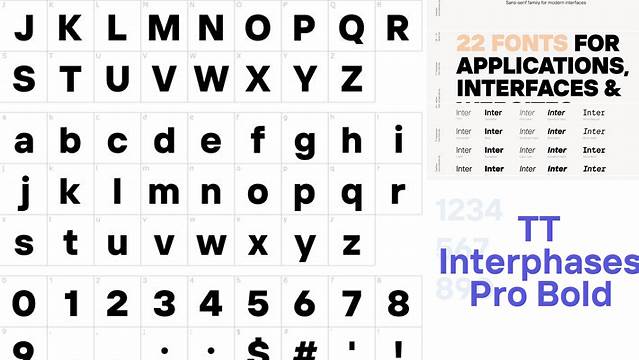
Hey guys, are you on the hunt for a killer font that’s gonna make your designs pop? Look no further! Today, we're diving deep into TT Interphases Bold, a font that's seriously turning heads. And the best part? We'll guide you on how to get your hands on it for free! This article will be your ultimate resource, packed with everything you need to know about this amazing font, from its design to where you can snag that free download. Get ready to boost your typography game!
What Makes TT Interphases Bold so Special?
Alright, let's get down to brass tacks. What's the buzz about TT Interphases Bold? Well, first off, it’s a fantastic display font, meaning it's perfect for headlines, titles, and anything that needs to grab attention. Its bold weight makes it super readable, even at larger sizes, and it's got a modern, clean aesthetic that fits right in with contemporary design trends. Seriously, this font has a personality. Think about it: you're crafting a website header, designing a poster, or maybe even creating some social media graphics. You need a font that not only looks good but also conveys the right message. TT Interphases Bold does that! This font is not just about aesthetics; it’s about functionality and readability. Imagine a website where the headlines are barely visible, or a poster where the main message is lost in a sea of confusing text. That's not the vibe we're going for, right? TT Interphases Bold ensures that your message is crystal clear and impactful.
So, why choose this font over the gazillion other options out there? Well, for starters, it's incredibly versatile. It works well in a variety of contexts, from sleek, minimalist designs to more complex, visually rich projects. Also, it has excellent legibility. In the design world, this is the most important element. And when you're aiming to make a statement, this font is your secret weapon. It's the kind of font that makes people stop and take notice. It’s got this unique combination of boldness and clarity that sets it apart. This font is designed to make your text stand out without overwhelming the viewer. It strikes a perfect balance between being assertive and being easy on the eyes.
Furthermore, the font offers a range of styles and weights. While we're specifically focusing on the bold version, it's worth noting that the TT Interphases family offers several other options. This versatility allows you to maintain a consistent brand identity across all your projects. You can pair the bold version with other lighter weights for body text, creating a cohesive and professional look. It’s like having a whole toolkit of typography at your disposal. The different weights and styles within the TT Interphases family let you craft a complete visual experience. Imagine creating a brand identity where the headlines use the bold font to make a statement, and the body text uses a lighter weight to provide a seamless reading experience.
In short, TT Interphases Bold is a powerful choice. It's readable, versatile, and eye-catching. Plus, it's got that modern edge that's super trendy right now. If you're looking to elevate your designs, this is a great place to start. This font isn't just about aesthetics; it's about the impact your message makes. This font is the tool that ensures your design stands out. So if you're ready to transform your typography, read on to learn how to snag this awesome font! You won’t be disappointed, I promise.